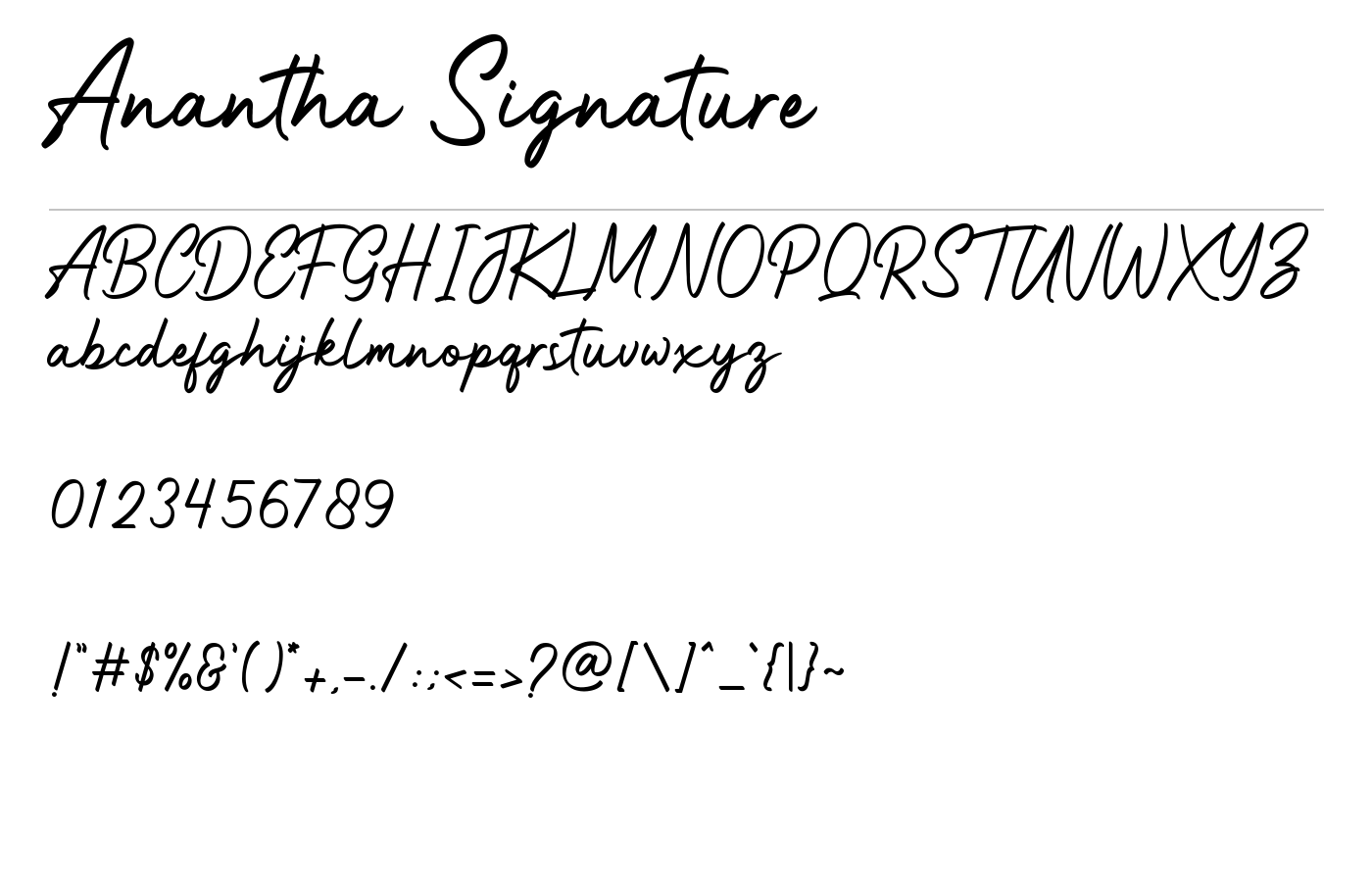
Anantha Signature is an elegant handwritten script font that conveys a natural, personal touch with its flowing and slightly angled letterforms. Its light weight, moderate x-height, and clean, smooth strokes make it perfect for creating stylish logos, invitations, and branding that seek a warm, sophisticated, yet approachable feel. This font works beautifully for fashion, beauty, and creative projects where a refined signature style adds a unique and authentic personality.
Anantha Signature Font
About Anantha Signature Font
| Font family | Anantha Signature Font |
| Designer | Teguh Subiyantoro |